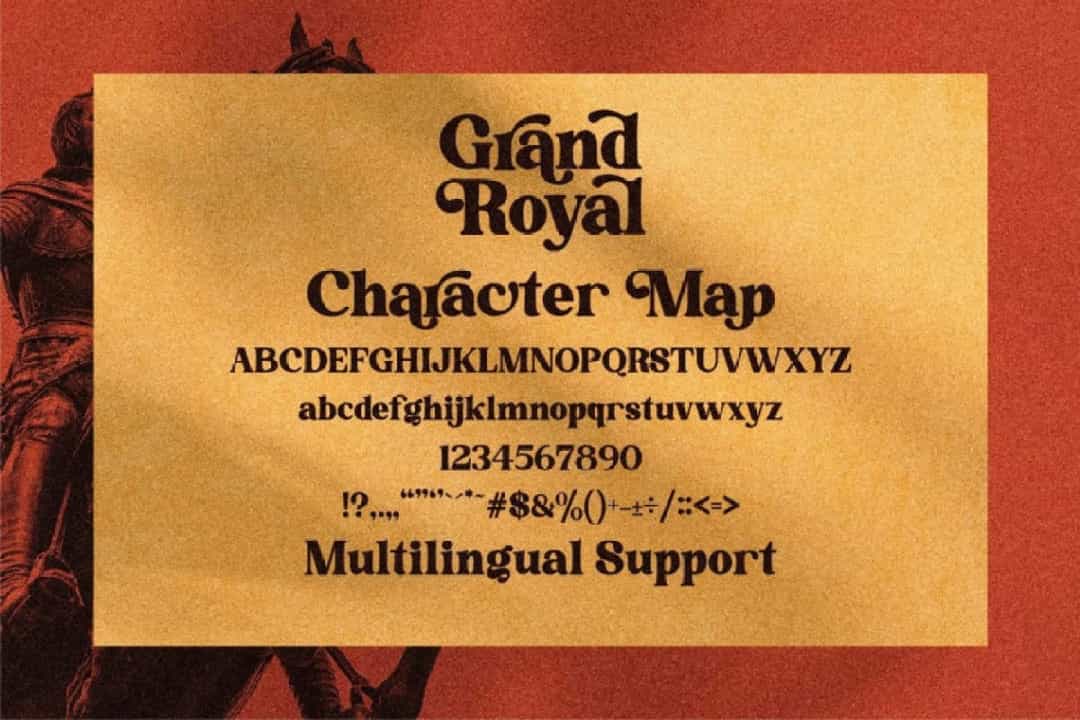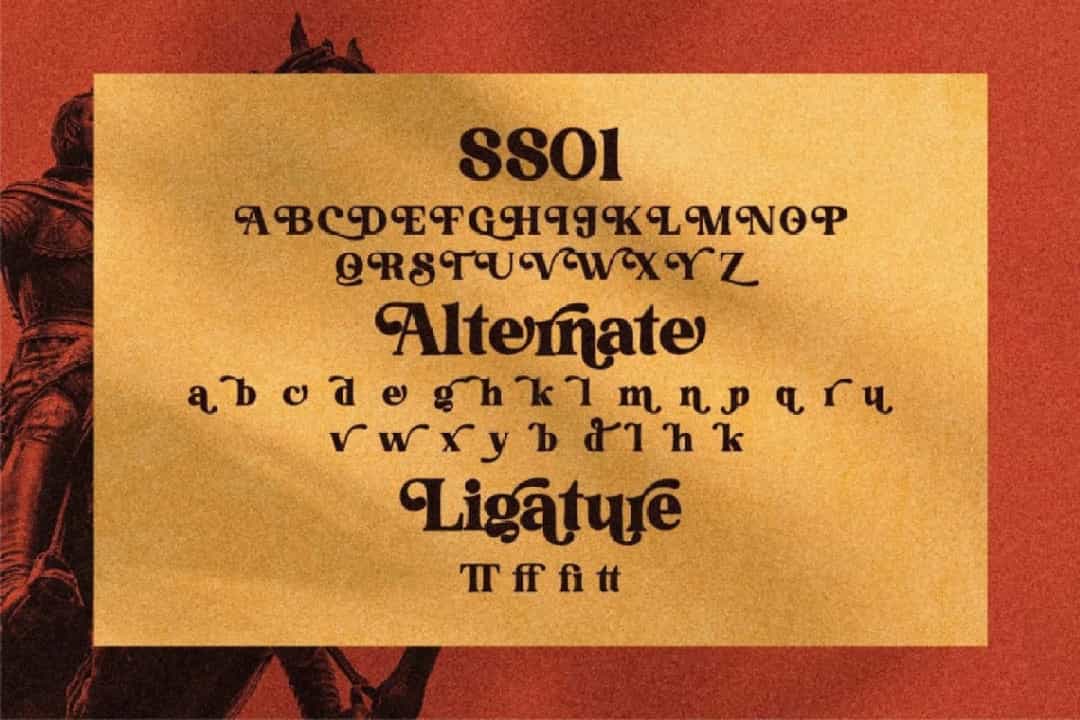
Grand Royal- Luxury Retro Serif font is well suitable for use in all designs, including logos, branding, and homeware designs packaging for products like mugs, quotes, bags, posters, and book covers; greeting cards; invitation cards; labels, and watermarks for photography special occasions, and any other projects that need luxury serif font.